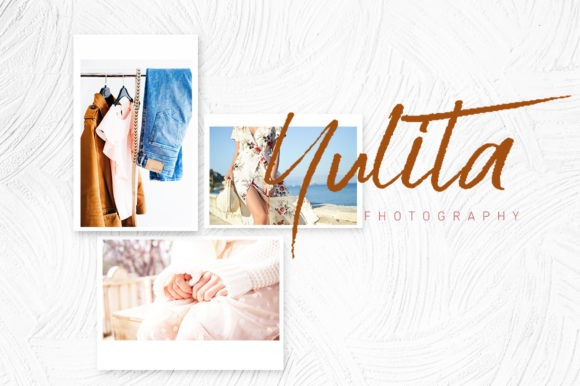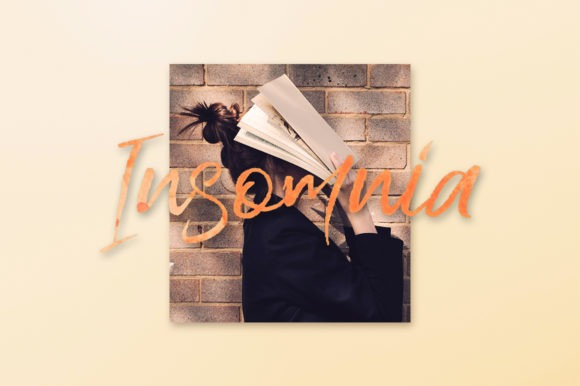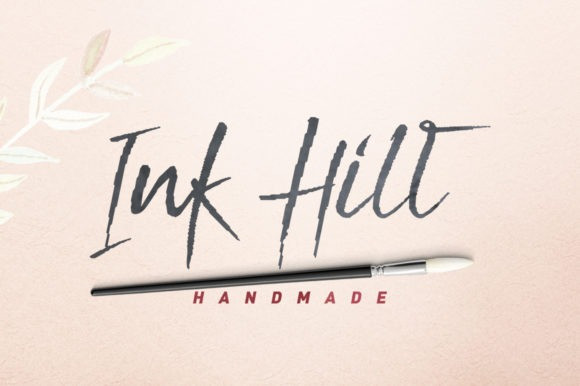
Ink Hill Font
Ink Hill Font is a modern handwritten script. It’s easy to use and has great readability! Thanks and have a wonderful day, Don’t forget to check out our other products.